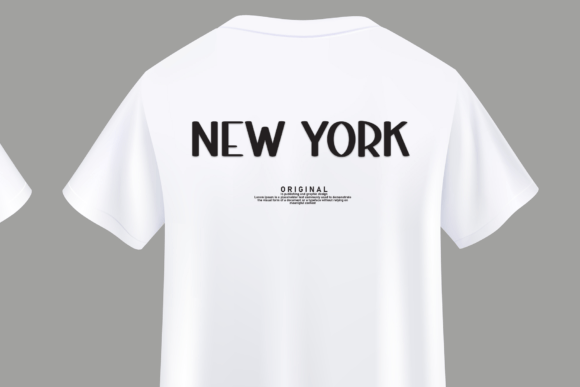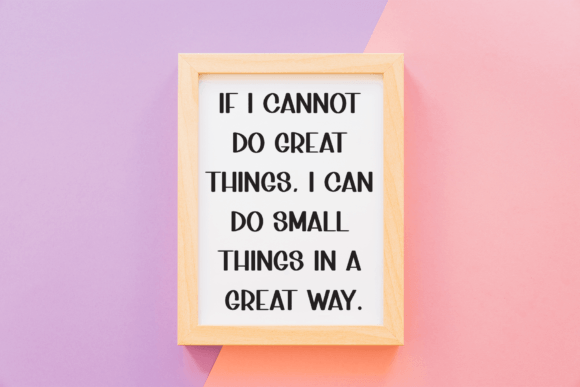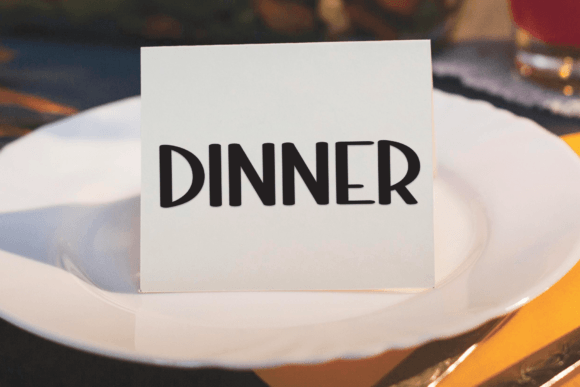
Introduction to Home Store Font
Home Store is a neat and casual sans-serif font that embodies simplicity and readability.
With its clean lines and friendly character, it’s perfect for user interfaces, informative signage, and modern branding Whether for digital or print, this font ensures your message stands clear and approachable.